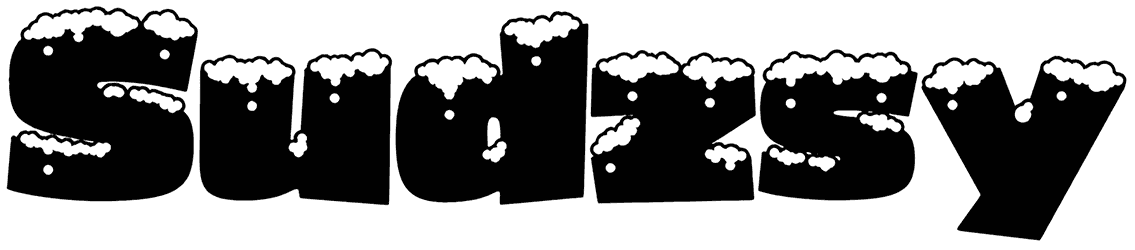
In some situations, you need a uniquely designed font, and the Sudzsy is the one. This snow font has a spectacular theme that can be helpful for various cases, such as posters, advertisements, and brochures.
The Sudzsy font’s letters are bold, and it seems there is snow on them. Moreover, the opposite color of snow and the characters look like 3D letters. These innovative features have made it memorable and attractive for the viewers.
– Contextual alternates*
– Accented characters
– Fractions
– Ligatures / Discretionary ligatures* If you’re unfamiliar with contextual alternates, they make the typed word look a little more organic with letters substituted for alternates. For example, typing two of the same letter/number will produce different versions of that letter glyph.